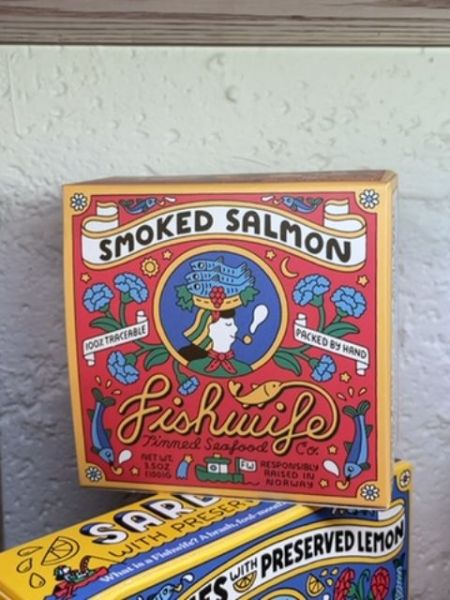
Fishwife Smoked Salmon
A packaged smoked salmon product for culinary consumption.
The typography is a mixture of bold and script styles, creating a dynamic and eye-catching contrast. The product name 'Fishwife' is displayed in a flowing, cursive script, adding an artisanal touch. 'Smoked Salmon' is in block capitals, enhancing readability and emphasizing the product's key feature.
The packaging features vibrant, playful illustrations with a retro vibe. Bold colors like red and yellow, along with decorative floral elements, frame the design. There's a central circular illustration with a whimsical, vintage-style figure.